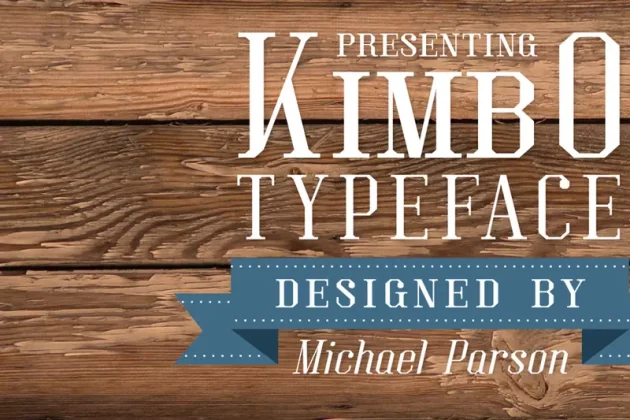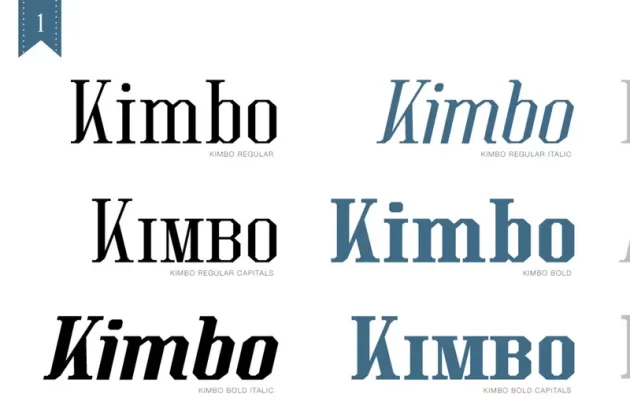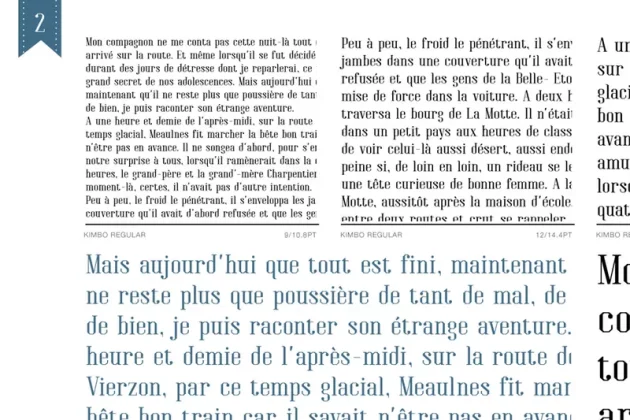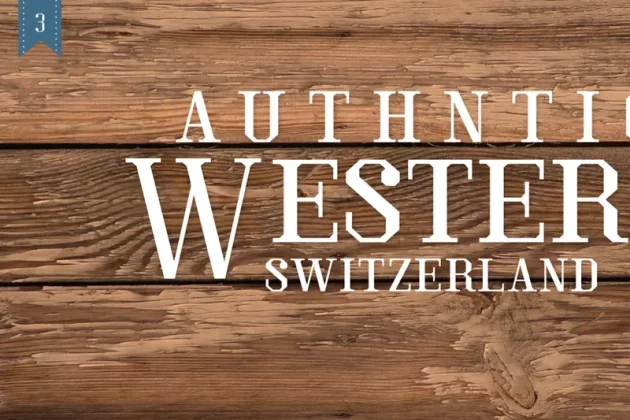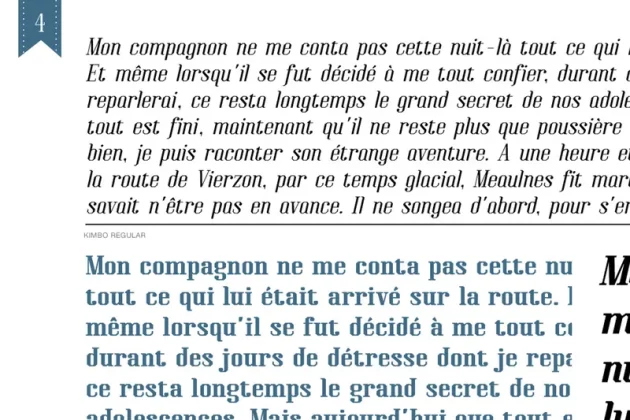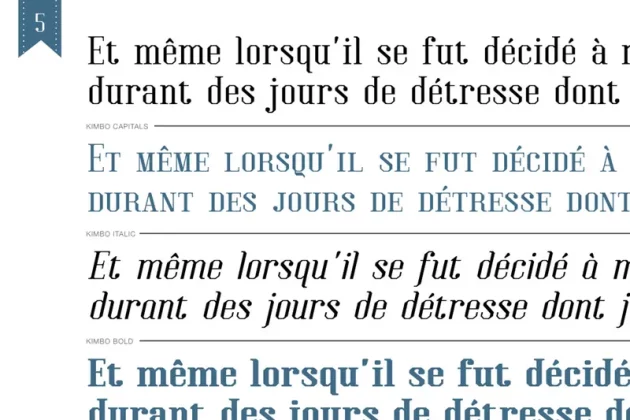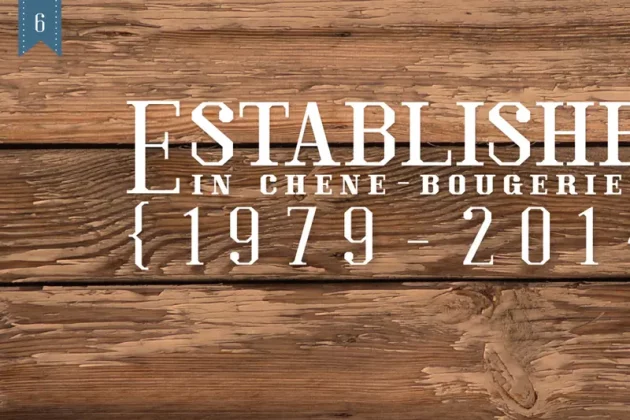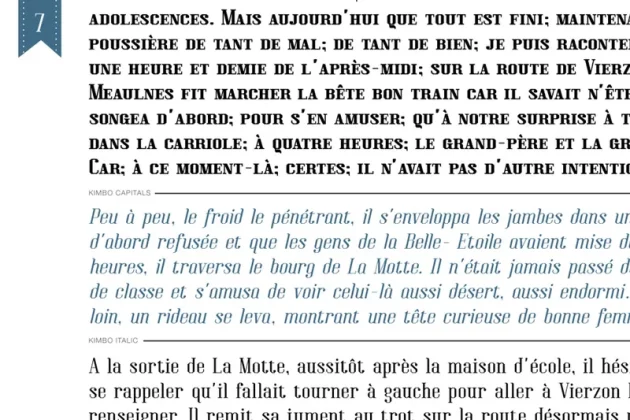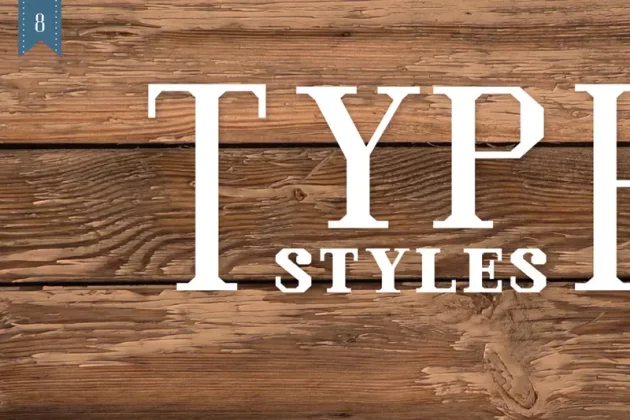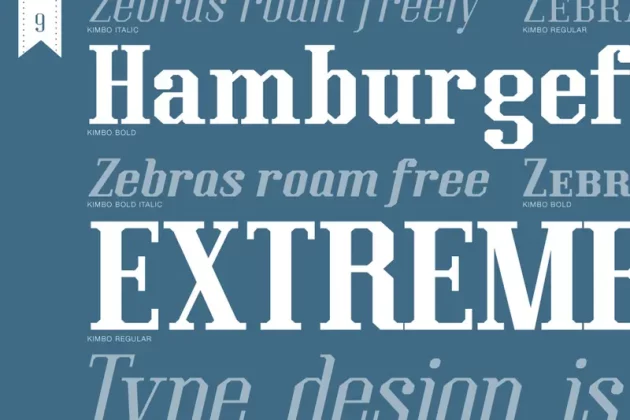
Kimbo Font
About Kimbo Font
Kimbo is a squared slab serif typeface that is both rigid and defined in large sizes, but remains legible in smaller text settings. It is featured in a regular weight but equally in a very dark, black weight that provides a clear distintiction.